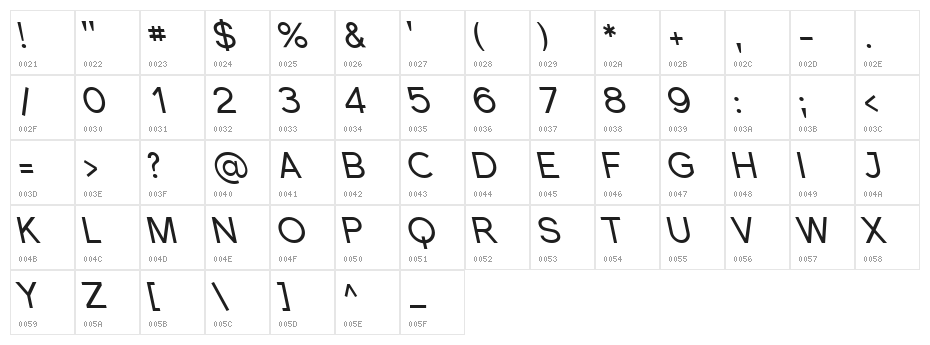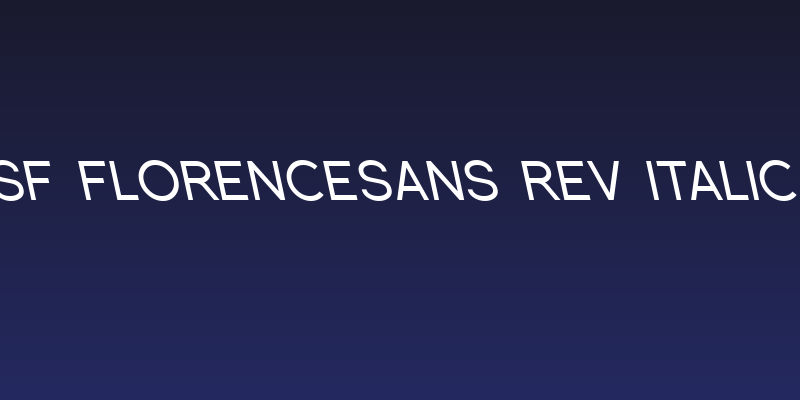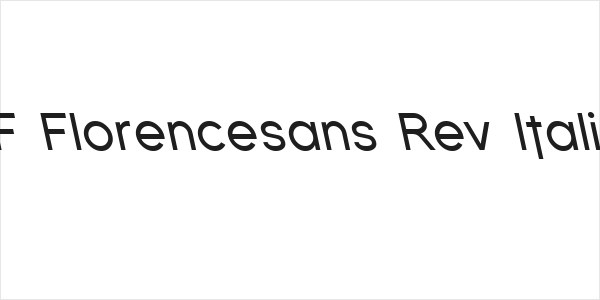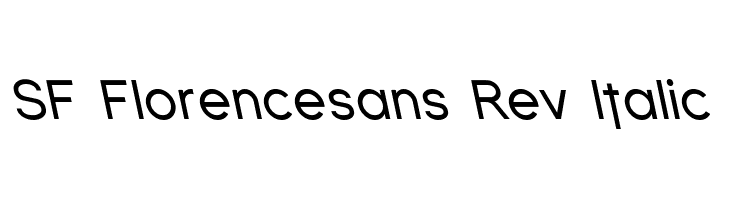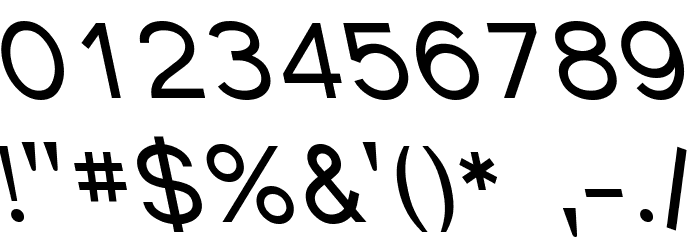
SF Florencesans Rev Italic Font
SF Florencesans Rev Italic Description
This font features a clean and modern sans-serif style with a slight italic slant, giving it a dynamic and contemporary appearance. The characters are well-proportioned with consistent stroke widths, contributing to a uniform and harmonious look. The uppercase and lowercase letters maintain a balanced height, ensuring readability across different sizes. The numerals are clear and distinct, matching the overall aesthetic of the alphabet. Special characters are included, providing versatility for various design needs. The font's simplicity and elegance make it suitable for a wide range of applications, from digital interfaces to print media.
| Use Case | Headlines, Body text, Logos |
| Proposed Projects | Ideal for branding, web design, advertising, and editorial layouts. |